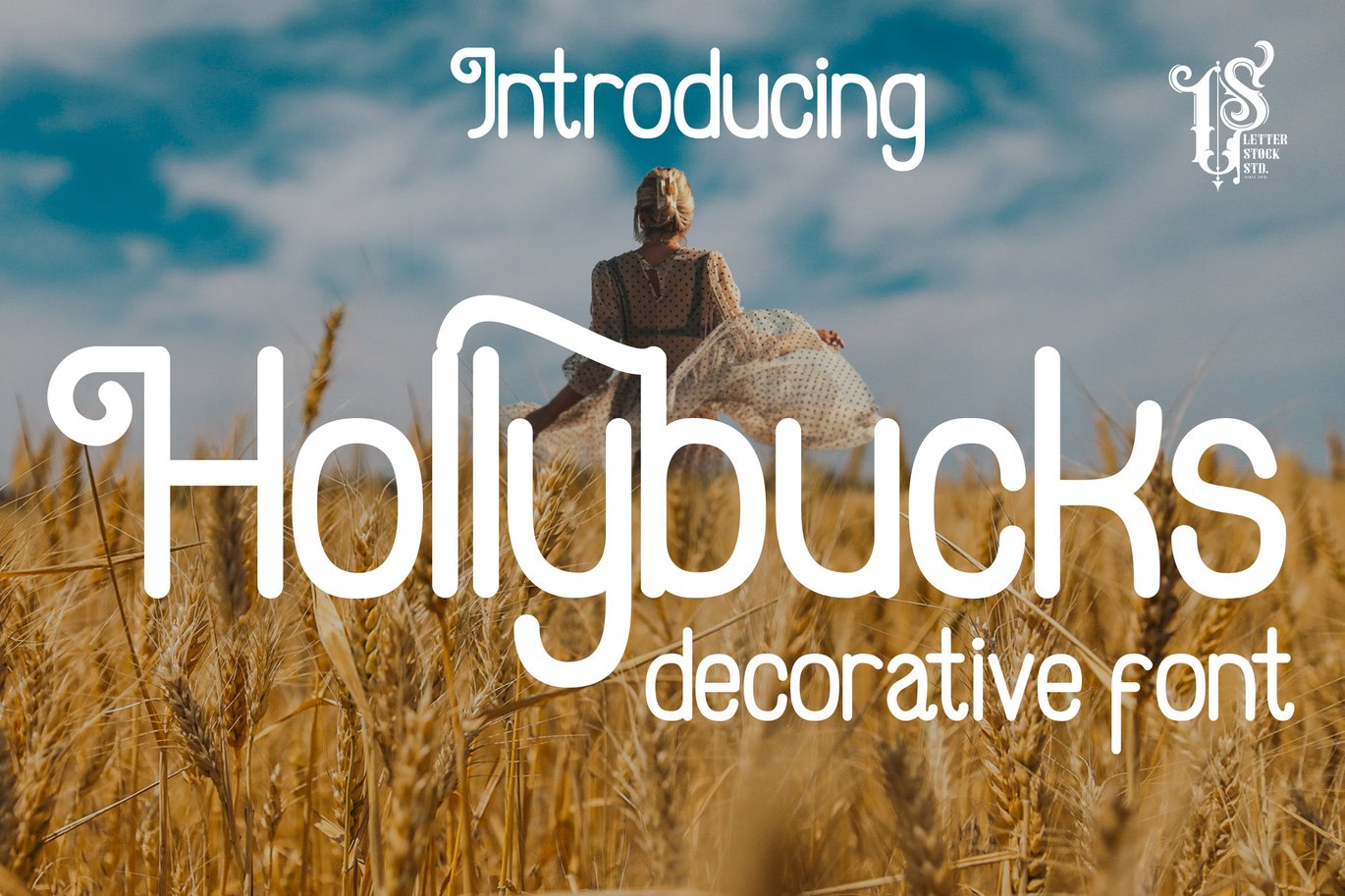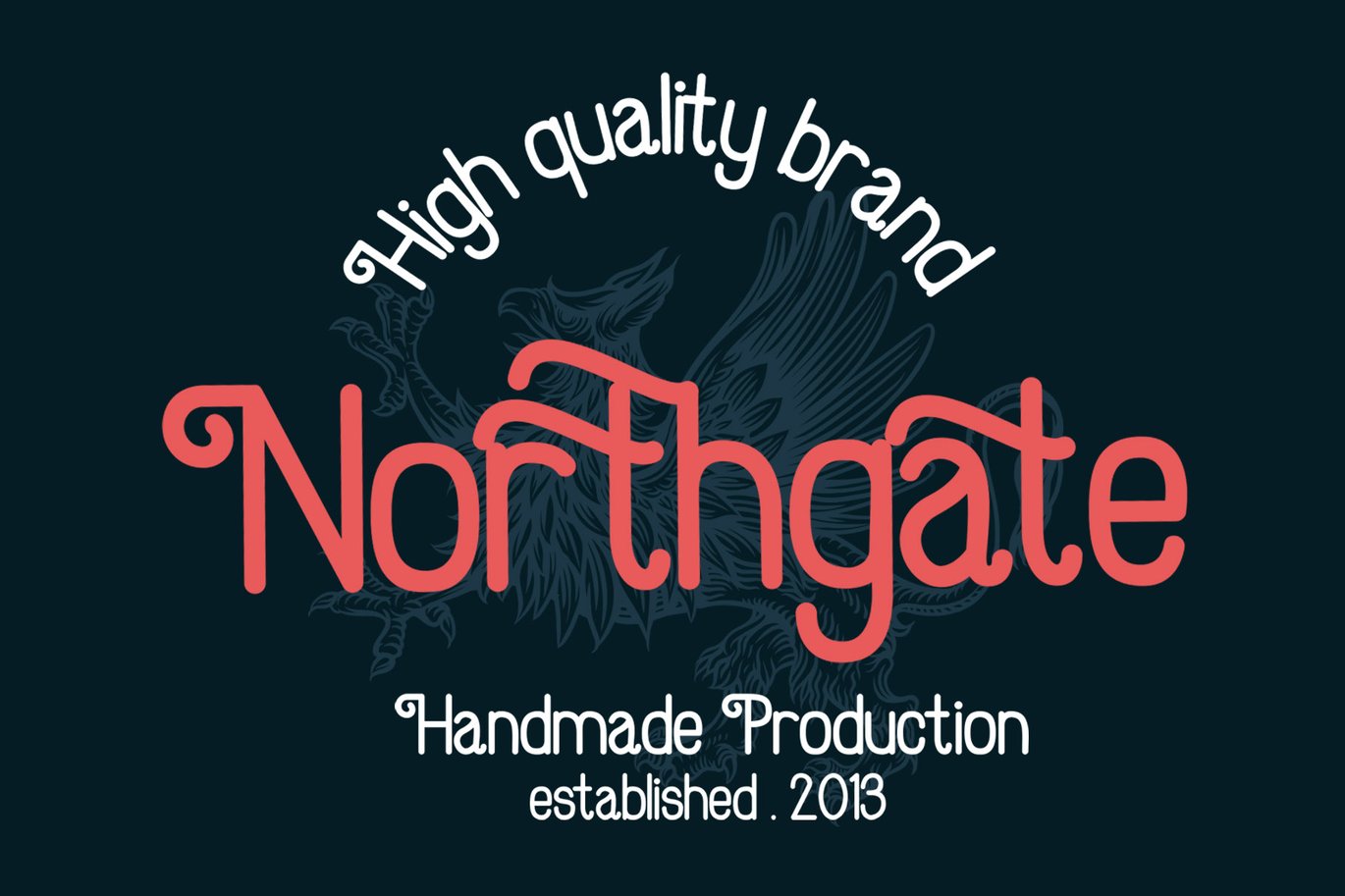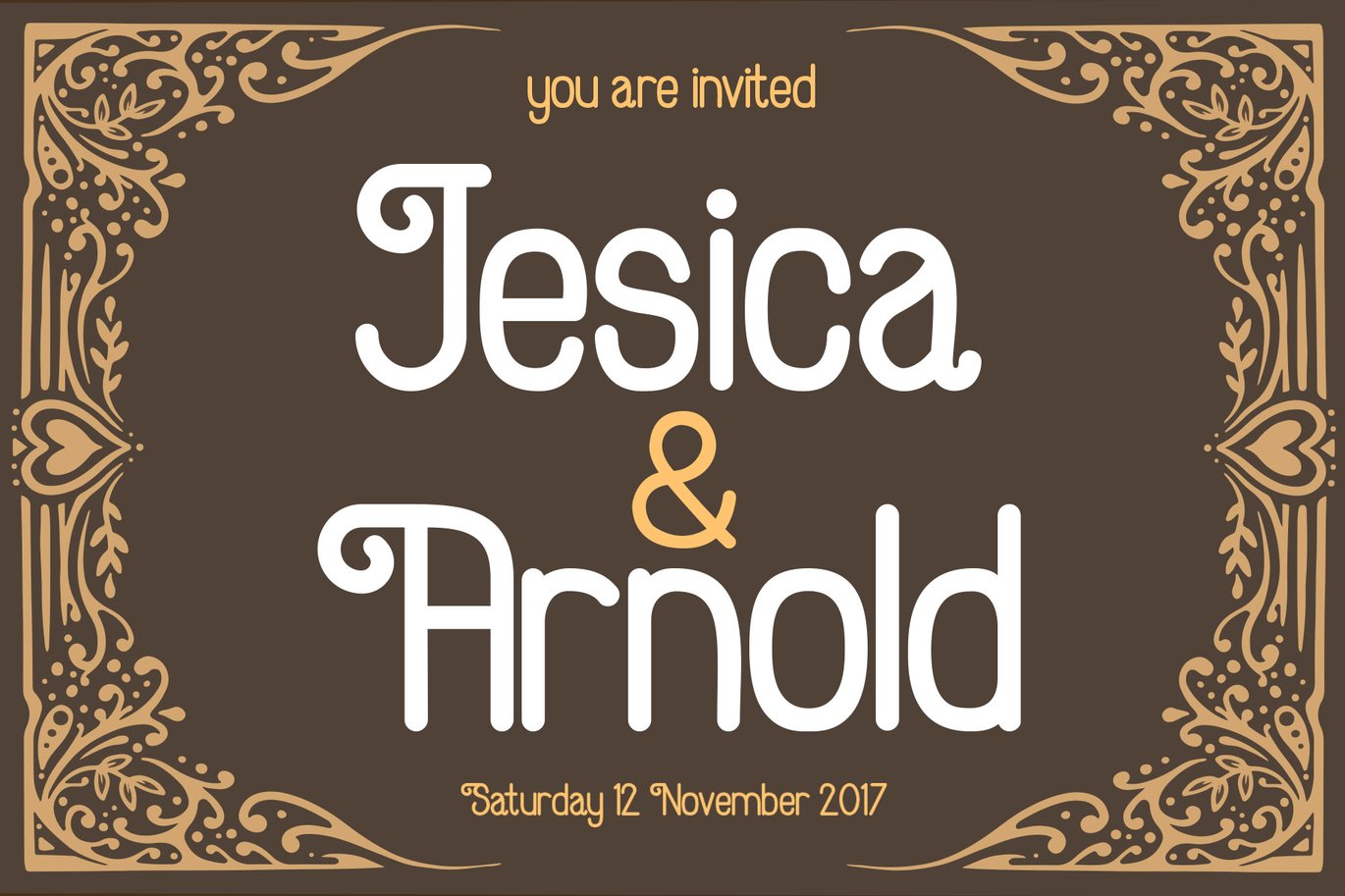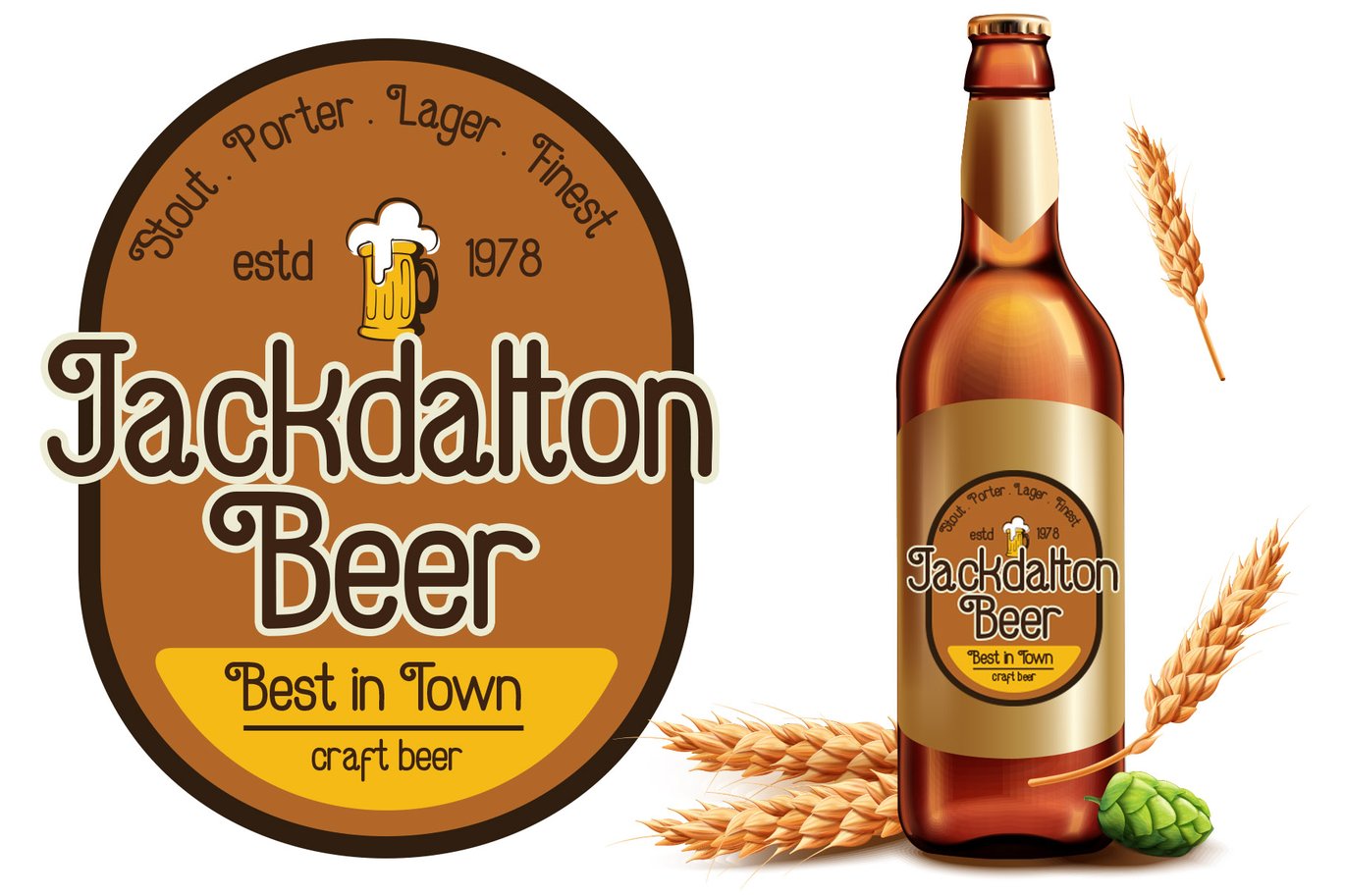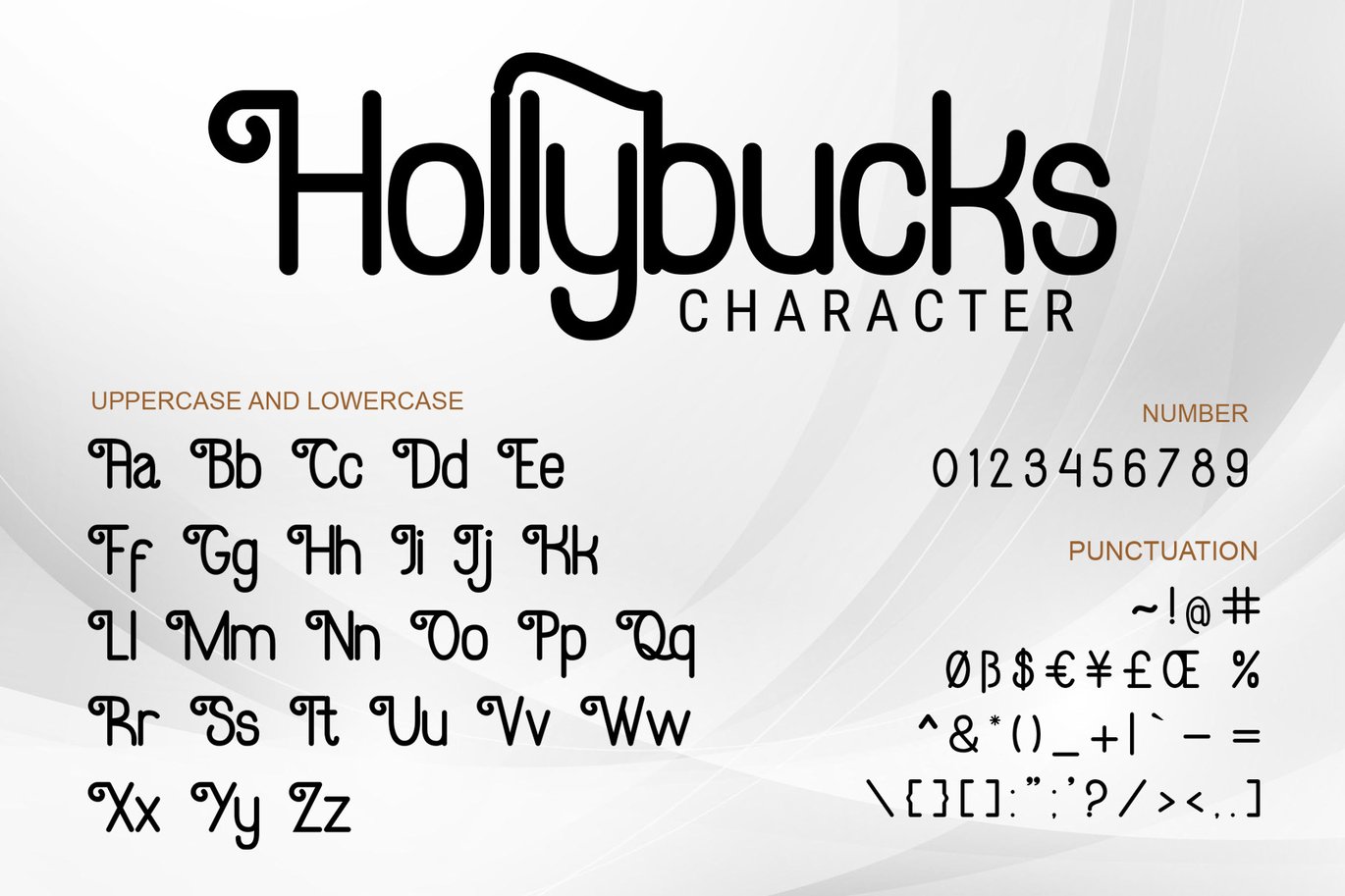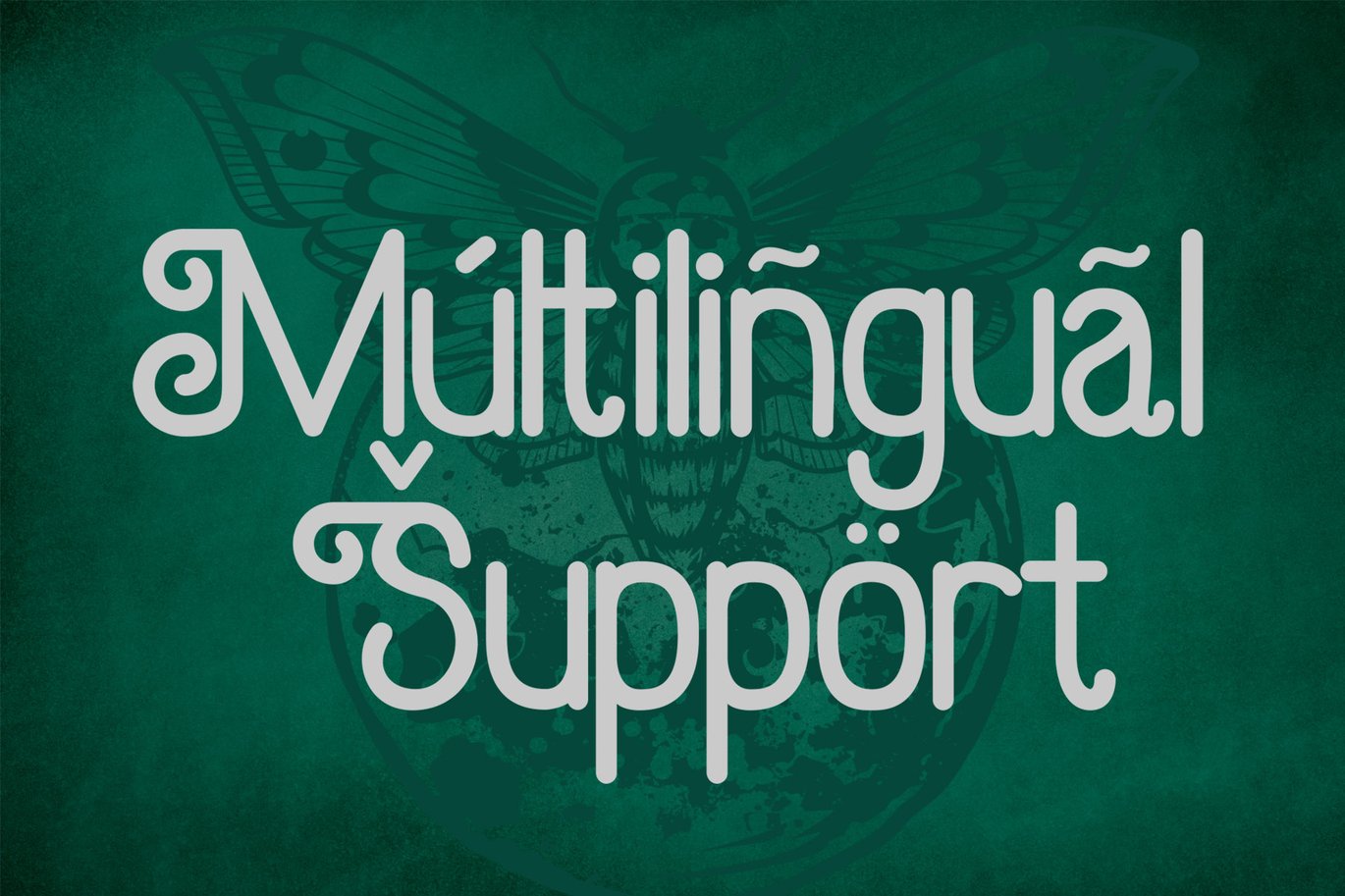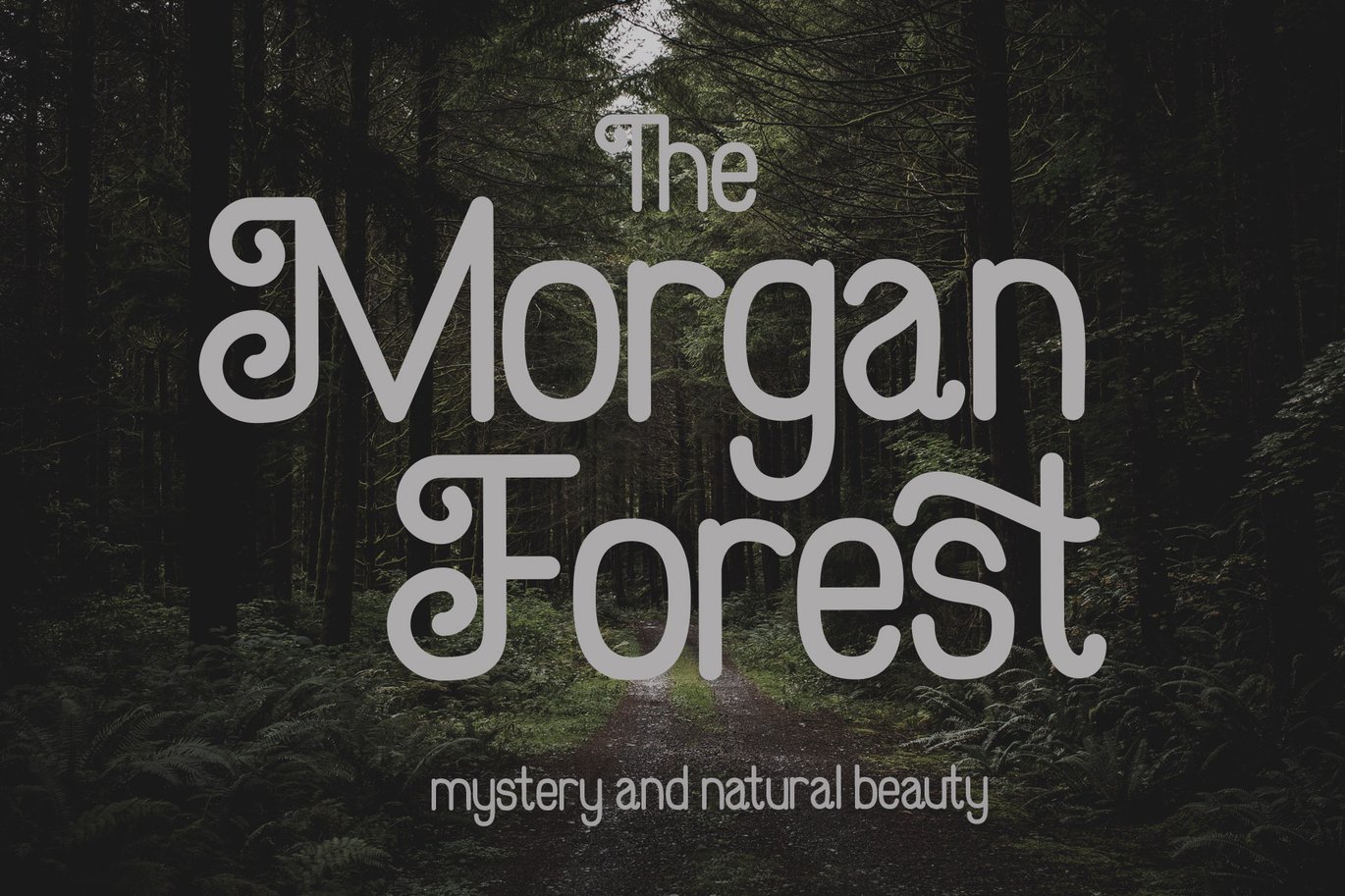
Hollybucks – decorative font
Hollybucks
Introducing Obidel font, that was inspired from a lettering design that i saw on pinterest. It was originally crafted by hand to add natural handmade feeling than i make it clean with pentool.
We improvise it a little bit to make a playful feel, this font is bold so and it can look strong if you use it for branding or even title for your poster design with playful decorative style.
Hollybucks Font is very good looking playful decorative font for logotype, labels, t-shirt prints, product packaging, invitations, advertising and others.
Multilingual support (Western European characters).
If you looking for a playful decorative font, than this item is a good choice for you because this font have a strong playful feel.